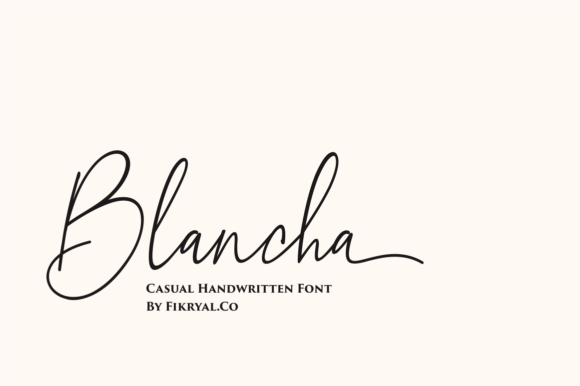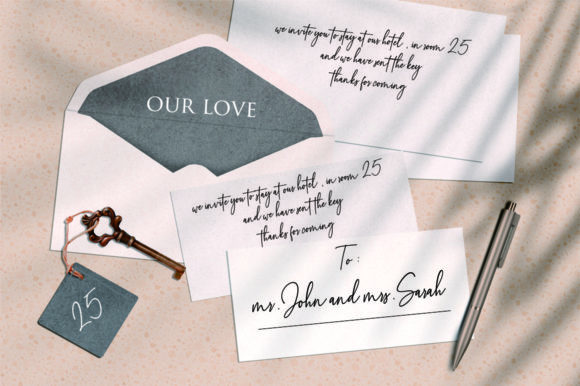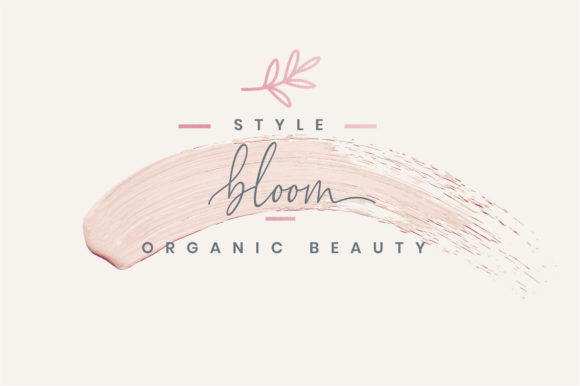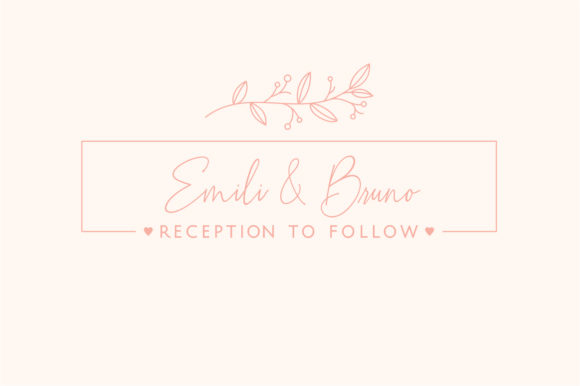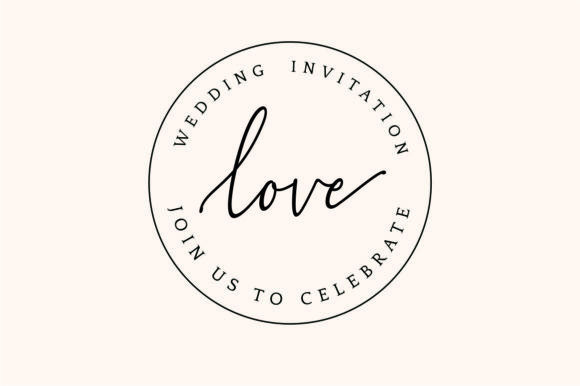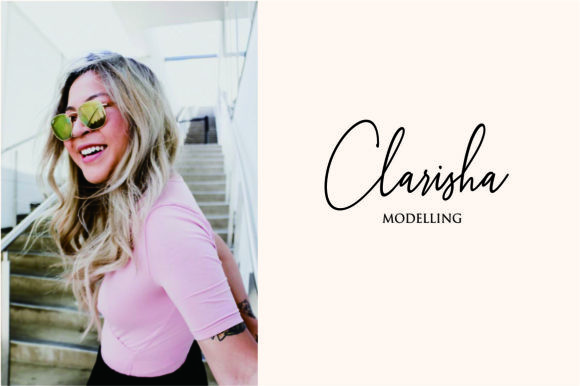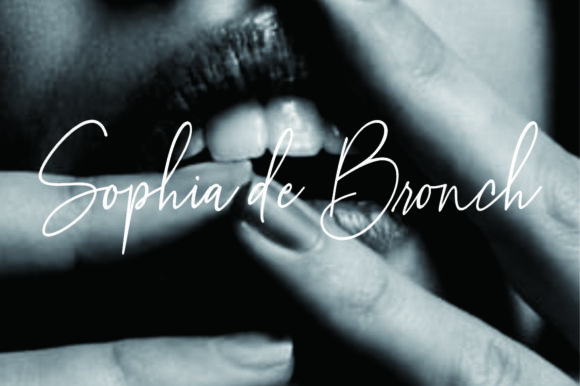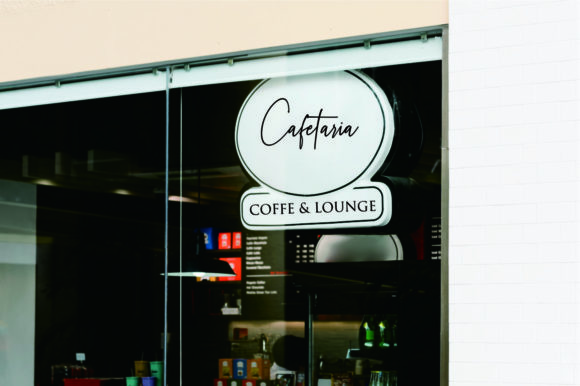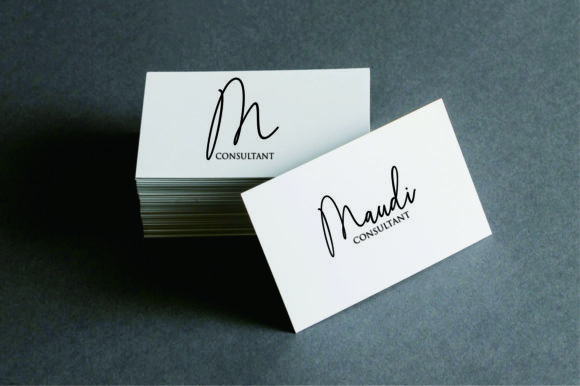
HomeScript FontsBlancha Font Script Fonts Blancha Font FacebookXPinterestWhatsApp Blancha Font Poster 2 Blancha Font Poster 3 Blancha Font Poster 4 Blancha Font Poster 5 Blancha Font Poster 6 Blancha Font Poster 7 Blancha Font Poster 8 Blancha Font Poster 9 About Blancha Font Blancha is a sweet and friendly handwritten font with a cool style. Get inspired by its modern look! DOWNLOAD NOW People also explored Berry Font Bethany Font Designer Handmade Font Anglina Farmhouse Font Latte People Font Poems & Pens Font December Script Font Wishyou Font Hoola Font 326 0 TagsBlancha Font Previous articleRestyla Script FontNext articleLetterbest Script Font LEAVE A REPLY Cancel reply Comment: Please enter your comment! Name:* Please enter your name here Email:* You have entered an incorrect email address! Please enter your email address here Website: Save my name, email, and website in this browser for the next time I comment. Personal Use Free Vogue Font Personal Use Free Read more about this font Equestrain Personal Use Free Read more about this font Concre Personal Use Free Read more about this font Lost Treasure Personal Use Free Read more about this font BLOG How to Install and Use Fonts on Windows, macOS, and Web Projects How to Install and Use Fonts on Windows, macOS, and Web Projects Fonts are a crucial part of design and branding. Whether you’re designing a... Modern Sans-Serif Fonts That Brands Love in 2025 Where to Buy American Fonts Online in 2024 Using Fonts in Digital Marketing: Tips to Strengthen Your Brand Identity